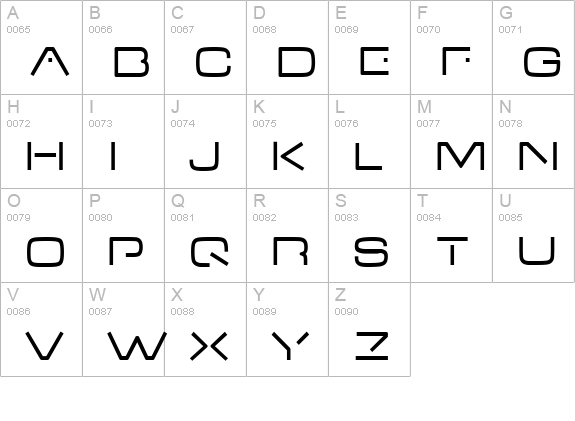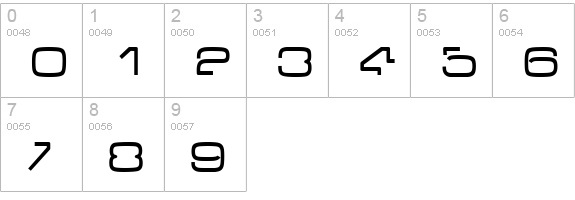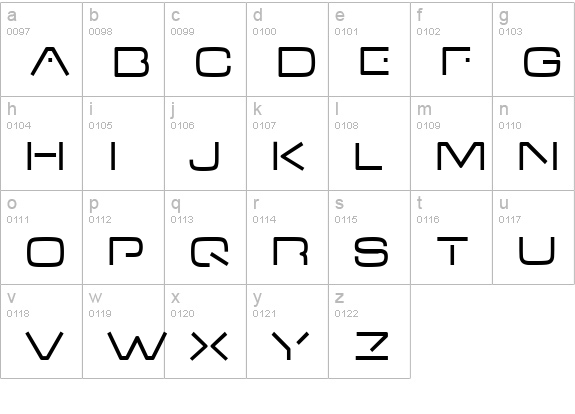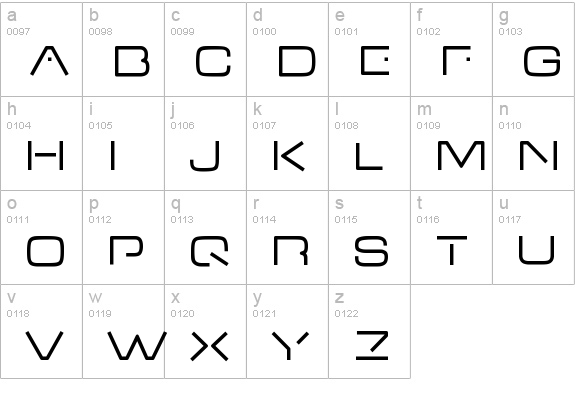
V-Dub Font Details
Introducing V-Dub, a captivating font that will bring a touch of uniqueness to your designs. With its bold and edgy letterforms, V-Dub exudes a sense of confidence and modernity, making it perfect for a wide range of creative projects. This free font offers a refreshing twist on traditional typography, with its distinctive geometric shapes and sharp angles. Its clean lines and smooth curves create a harmonious balance, ensuring legibility without sacrificing style. Whether you're designing a logo, crafting a poster, or creating eye-catching social media graphics, V-Dub is sure to make a lasting impression. Its versatility allows it to effortlessly adapt to various design themes, adding a touch of sophistication and professionalism to any project. But what truly sets V-Dub apart is its accessibility. This remarkable font is freely available to download at FontsMarket.com, allowing designers of all levels to access its captivating aesthetic without any limitations. So, whether you're a seasoned professional or just starting out, V-Dub is here to inspire and elevate your creative endeavors. So why settle for ordinary when you can embrace the extraordinary? Download V-Dub today and experience the freedom of unleashing your creativity with this exceptional font.